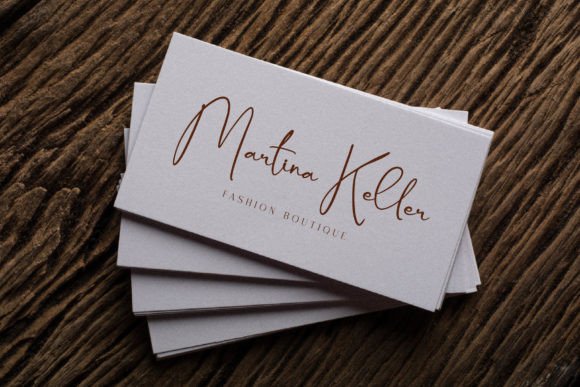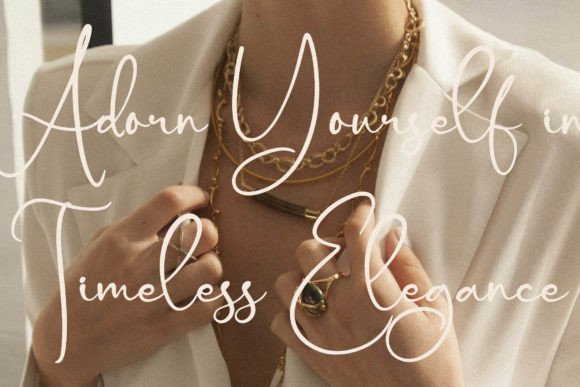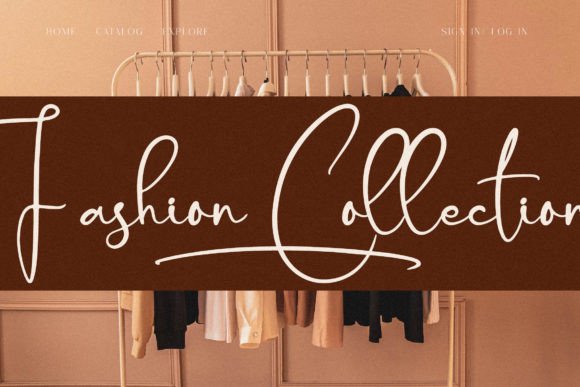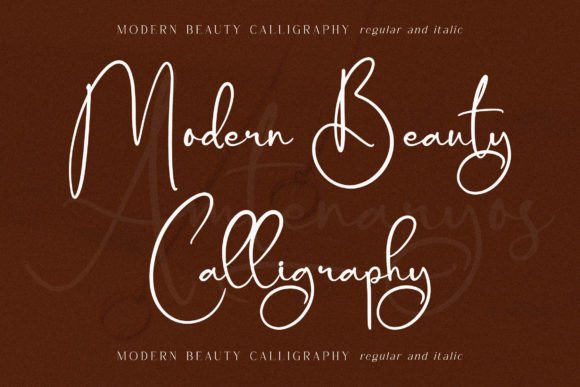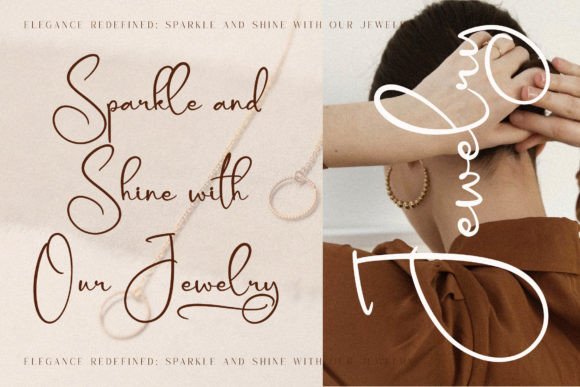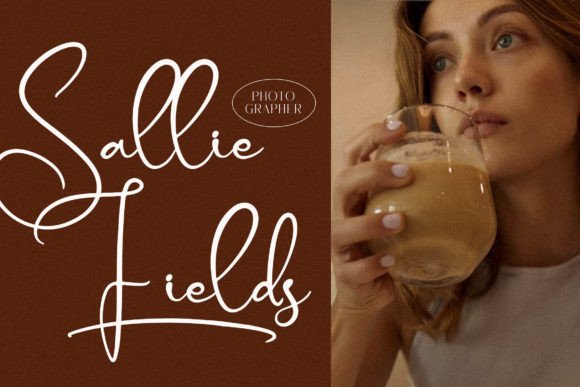
Introducing Amtenaryos: The Modern Beauty Calligraphy Font
Are you a designer or crafter looking for a beautiful script font to elevate your projects? Look no further than Amtenaryos, a stunning modern calligraphy font from Glorytype Studio. This gorgeous font is perfect for a wide range of applications, from logos and branding projects to homeware designs, product packaging, and more.
The Beauty of Amtenaryos
Amtenaryos is a masterfully crafted calligraphy font that exudes elegance and sophistication. Its modern beauty is perfect for designers and crafters who want to add a touch of luxury to their projects. The font’s flowing lines and intricate details make it a standout choice for any project that requires a beautiful script taste.
One of the best things about Amtenaryos is its versatility. This font is suitable for a wide range of projects, including:
- Logos and branding projects
- Homeware designs
- Product packaging
- Mugs
- Quotes and posters
- Shopping bags
- T-shirts
- Book covers
- Name cards
- Invitation cards
- Greeting cards
- Labels
- Photography and watermark
- Special events
Why Choose Amtenaryos?
So why choose Amtenaryos for your next project? Here are just a few reasons:
- Unique and eye-catching: Amtenaryos is a one-of-a-kind font that will make your project stand out from the crowd.
- Elegant and sophisticated: This font exudes luxury and sophistication, making it perfect for high-end projects.
- Versatile: Amtenaryos can be used for a wide range of projects, from logos and branding to homeware designs and product packaging.
Tips for Using Amtenaryos
Here are a few tips for using Amtenaryos in your projects:
- Use it sparingly: Amtenaryos is a bold font, so use it sparingly to make a big impact.
- Pair it with a simple font: Pair Amtenaryos with a simple font to create a beautiful contrast.
- Experiment with colors: Amtenaryos looks great in a variety of colors, so don’t be afraid to experiment.
Amtenaryos is a stunning modern calligraphy font that is perfect for designers and crafters who want to add a touch of luxury to their projects. Its versatility, elegance, and sophistication make it a standout choice for a wide range of applications. Whether you’re working on a logo, branding project, homeware design, or product packaging, Amtenaryos is sure to make your project shine.